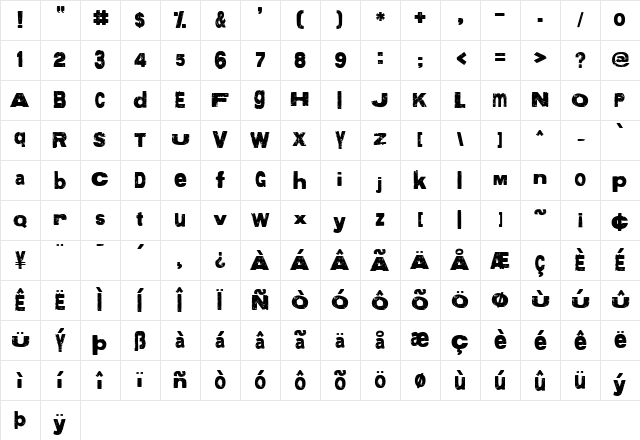
More than Enough Regular Free Font
More than Enough Regular
Foundry: Kimberly Geswein
Designer: Kimberly Geswein
Design Context for More than Enough
More than Enough is a composed and adaptable typeface that performs quietly and consistently across a wide range of design contexts.